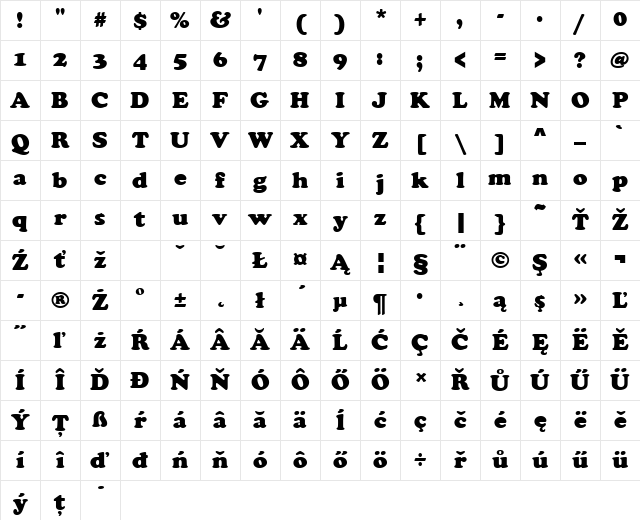
CooperBlaDEE Regular
CooperBlaDEE Family
CooperBlaDEE Regular
Complete CooperBlaDEE Regular glyph index. Displaying only characters natively supported by CooperBlaDEE Regular font.
Design Context for CooperBlaDEE
CooperBlaDEE is a composed and adaptable typeface that performs quietly and consistently across a wide range of design contexts.